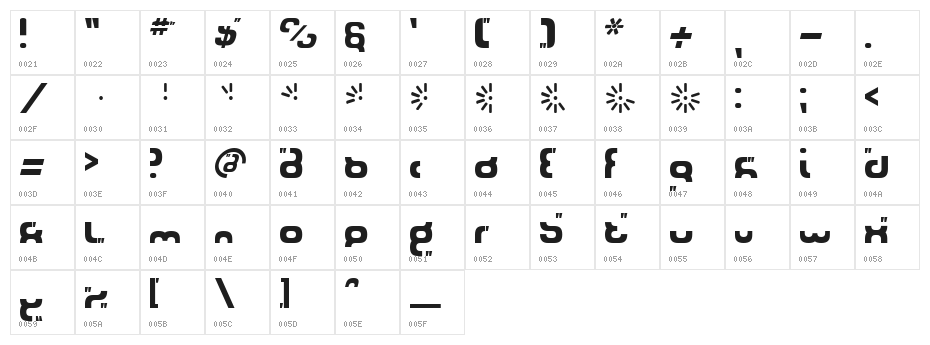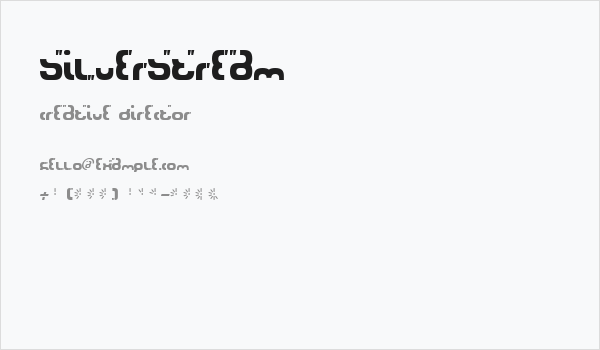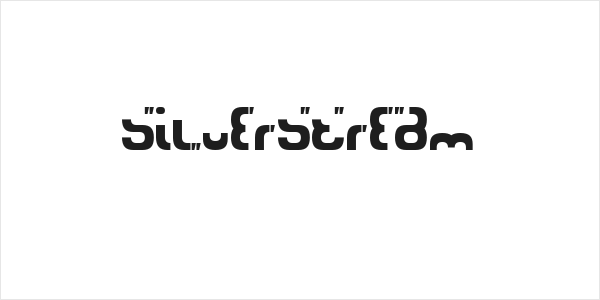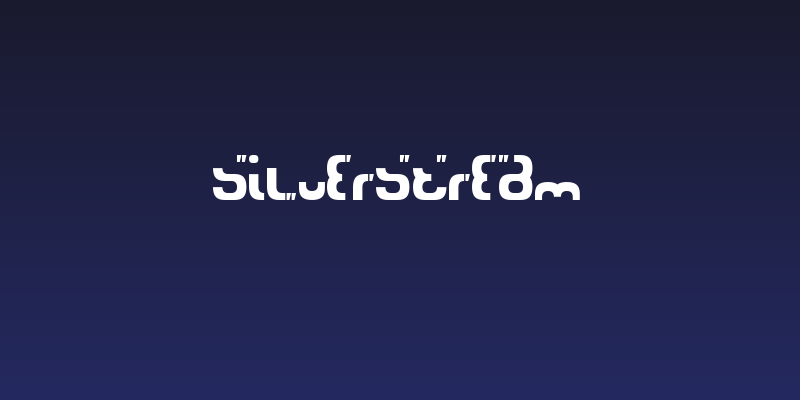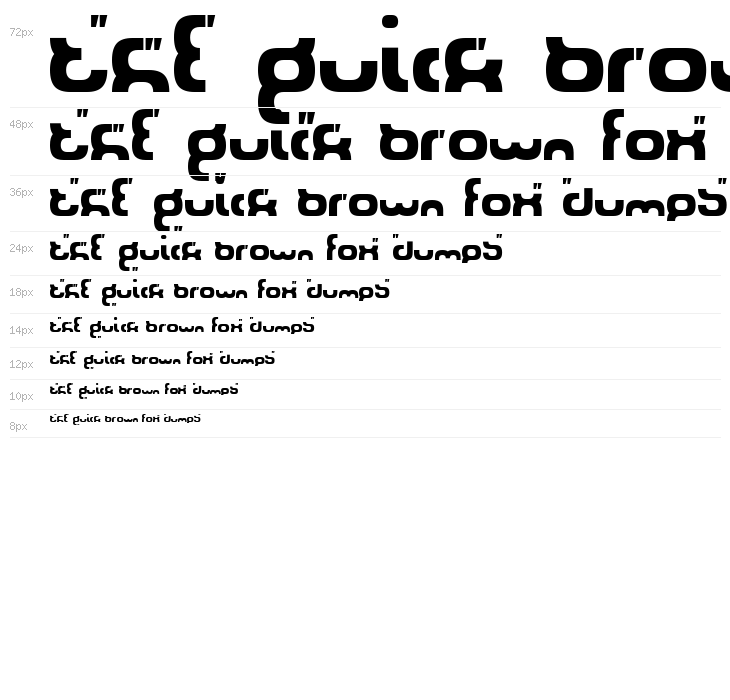
SilverStream Font
SilverStream Description
This font features a bold and futuristic design with a unique, geometric style. The characters are composed of thick, rounded strokes that create a sense of modernity and innovation. The uppercase and lowercase letters maintain a consistent weight, contributing to a cohesive and visually striking appearance. The numerals and special characters follow the same design principles, ensuring uniformity across all glyphs. This font is ideal for projects that require a contemporary and cutting-edge aesthetic.
| Use Case | Logos, Headlines, Posters |
| Proposed Projects | Ideal for technology branding, sci-fi posters, video game titles, and modern advertising campaigns. |